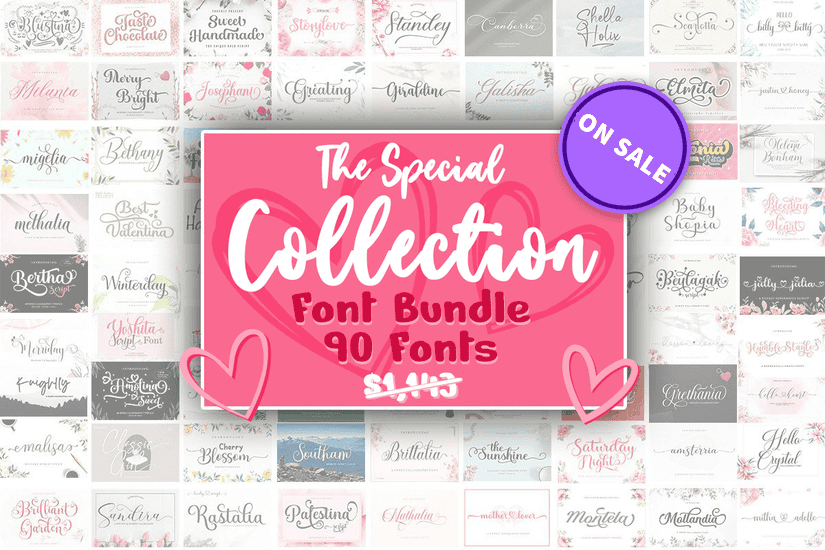
Bring Your Designs to Life with the Special Collection Font Bundle
Design projects deserve fonts that capture attention and communicate emotion. With The Special Collection Font Bundle by Romie Creative, you receive 90 professionally crafted fonts that deliver timeless elegance and versatility. Perfect for crafters, small business owners, designers, and hobbyists alike, this bundle includes script, handwritten, serif, and retro styles to suit a wide variety of applications—from Christmas-themed branding to t-shirt slogans.
Why This Font Bundle Is a Must-Have
Each font in this collection is:
- Crafted with care and unique style by Romie Creative
Ideal Uses for the Special Collection Fonts
These fonts are suitable for an extensive range of design needs. From holiday cards and mugs to business branding and social media graphics, each font in this bundle adds charm and personality to your work. Here are just a few use cases:
- Seasonal Crafts: Perfect for Christmas cards, New Year invitations, and winter-themed home decor
- Merchandise Design: Use for apparel, mugs, pillows, and tote bags
- Small Business Branding: Give your logos, packaging, and signage a distinctive look
- Social Media Content: Add flair to Instagram posts, stories, and Pinterest graphics
- Wedding & Event Stationery: Ideal for save-the-date cards, wedding invitations, and guest signage
- Digital Products: Use in eBooks, digital planners, and printable templates
Top Font Highlights from the Bundle
This collection includes a variety of font styles, each with its own character and appeal:
- Manchester – A bold handwritten font perfect for headlines
- Authentic Signature – Delivers a personal, handwritten vibe
- Greating – Elegant and refined for invitations and cards
- Blossom Lovely – Feminine and floral-inspired
- Glamour – Sophisticated and graceful
- Rastalia – Whimsical with a flowing script style
- Hello Crystal – Fun and vibrant for kids’ projects
- Winterday – Great for festive and wintertime themes
- Classic Girl – A blend of retro and chic
- Marleys Serif – Clean and professional serif font
Each font comes with alternate glyphs and decorative swashes, giving you complete creative control and flexibility.